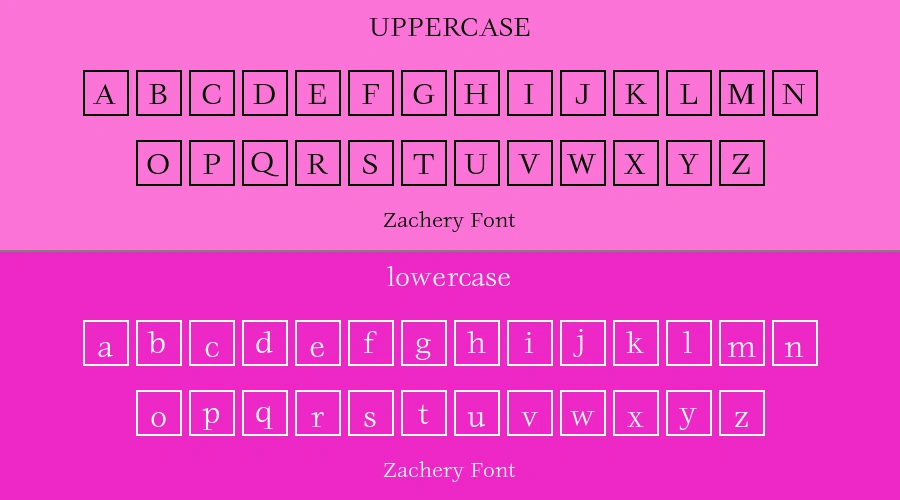
About Zachery Font
Zachery Font embodies typographic excellence through its masterful combination of ball terminals and adaptability. Created for heritage brands, this typeface delivers exceptional consistency and design excellence across all applications. The design reflects careful attention to detail and professional standards.
Advanced capabilities include distinctive flared stems and versatile stylistic sets, giving designers creative control. When used in literary pages, Zachery Font exhibits remarkable numerical alignment. The harmonious balance between proportion and cultural relevance sets this typeface apart.